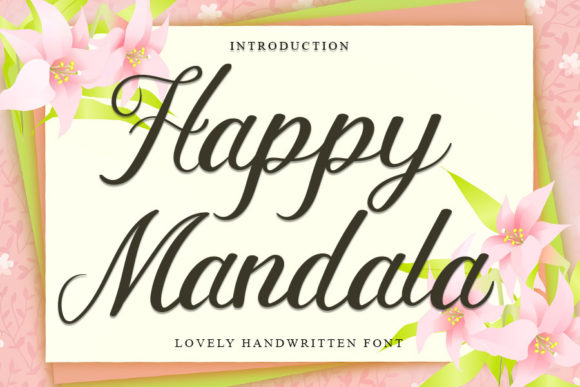
Step into a world of unparalleled beauty with Happy Mandala, an enchanting script font that brings a touch of ethereal radiance to your designs. This masterpiece, lovingly crafted by Inermedia STUDIO, will elevate your creations to new heights of elegance and allure.
With its graceful curves and sophisticated charm, Happy Mandala is the epitome of refinement. Its stylish alternates and expertly crafted ligatures dance seamlessly together, creating a harmonious symphony of letters. Each stroke is a testament to the artistry of its creators, capturing the essence of beauty and inspiration.
Whether you seek to craft captivating logos that will leave a lasting impression or design breathtaking invitations that ignite the imagination, Happy Mandala is your perfect muse. Its versatility knows no bounds, extending to stunning branding, enchanting social media posts, and captivating website design.
Indulge in the luxury of Happy Mandala and witness the transformation of your projects. Its enchanting aura will captivate your audience, drawing them into a realm of pure aesthetic delight. Let the magic of this exquisite font weave its spell, guiding you towards creative triumphs that will leave an enduring legacy of beauty.